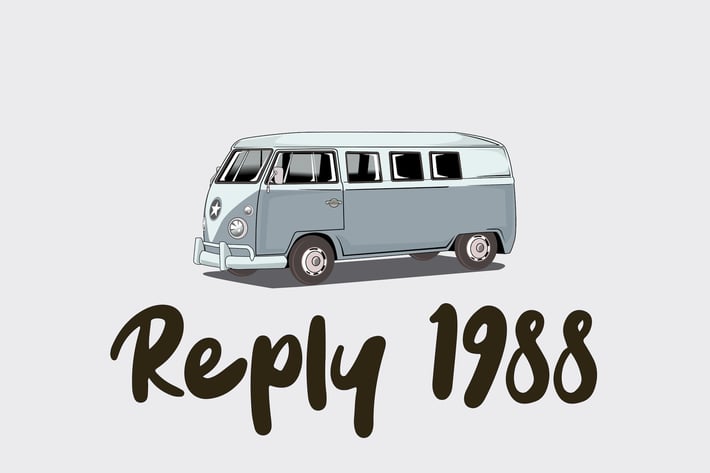
Salaka - Handwritten Brush Font
is Salaka - Handwritten Brush Font script font with handlettering pen Style.
Suitable for design, element design, wedding, event, t-shirt, logo, badges, sticker,
and awesome work, etc...